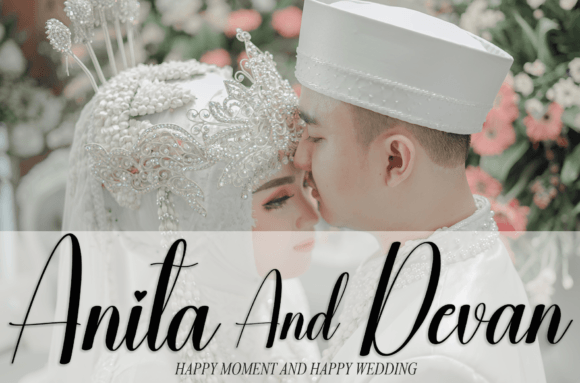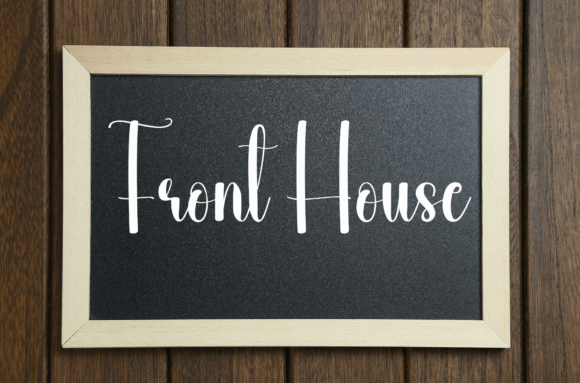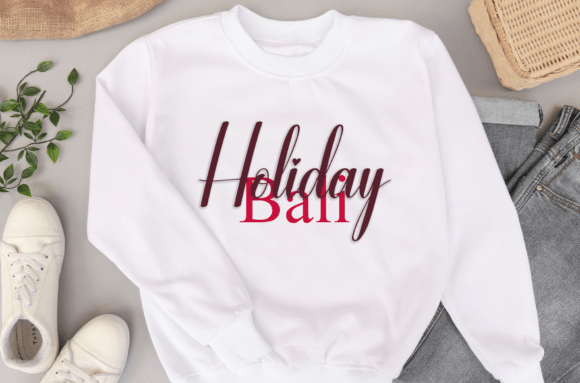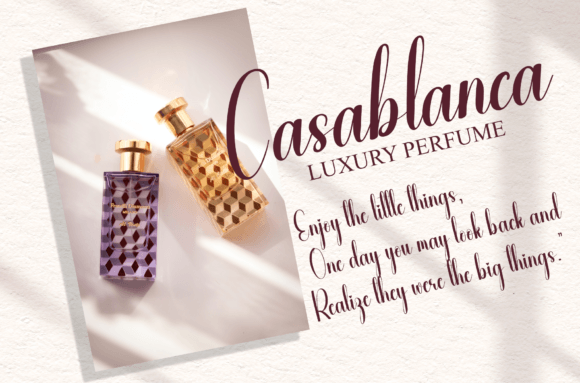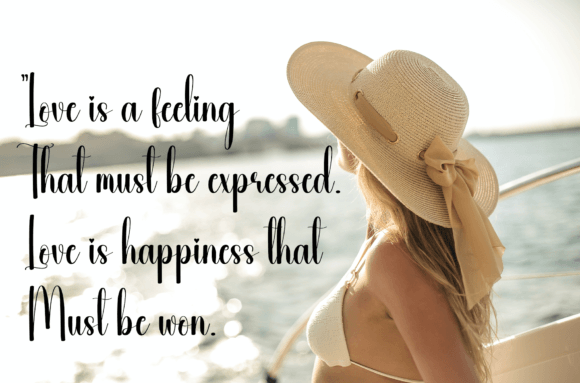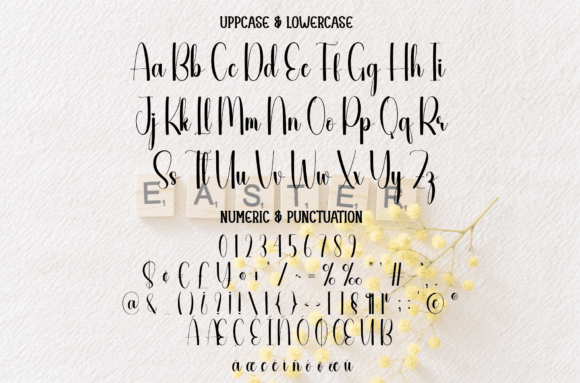
Easter is Coming Font: The Perfect Addition to Your Design Collection
As the Easter season approaches, designers and crafters are on the lookout for the perfect font to add a touch of whimsy and fun to their creations. Look no further than the Easter is Coming font, a sweet and friendly handwritten font that’s sure to delight. In this article, we’ll take a closer look at this charming font and explore its many uses in design.
A Fresh and Friendly Font
Easter is Coming is a handwritten font that’s fresh, neat, and full of personality. Its sweet and friendly vibe makes it perfect for a wide range of design projects, from wedding invitations and cards to Easter-themed crafts and decorations. The font’s clean lines and simple shapes give it a neat and organized feel, while its playful curves and flourishes add a touch of whimsy and fun.
Ideal for Wedding Invitations and Cards
One of the key uses for the Easter is Coming font is in wedding invitations and cards. The font’s romantic and playful feel makes it perfect for couples looking for a unique and personalized way to share their special day with friends and family. Whether you’re designing a formal wedding invitation or a casual Easter-themed card, this font is sure to add a touch of elegance and sophistication.
Adding a Fun Touch to Your Designs
But Easter is Coming is more than just a pretty font – it’s also incredibly versatile. Its fun and playful vibe makes it perfect for adding a touch of whimsy to any design project. Use it to create eye-catching headlines, add personality to your social media posts, or even design custom Easter-themed decorations and crafts. The possibilities are endless!
Key Features of Easter is Coming Font
- Sweet and friendly handwritten font: Easter is Coming is a unique and charming font that’s perfect for adding a personal touch to your designs.
- Fresh and neat design: The font’s clean lines and simple shapes give it a neat and organized feel that’s perfect for a wide range of design projects.
- Ideal for wedding invitations and cards: The font’s romantic and playful feel makes it perfect for couples looking for a unique and personalized way to share their special day.
- Versatile and fun: Easter is Coming is perfect for adding a touch of whimsy to any design project, from social media posts to custom decorations and crafts.
Tips for Using Easter is Coming Font
So now that we’ve explored the many uses of Easter is Coming, let’s take a look at some tips for using this charming font in your designs:
- Pair it with complementary fonts: Easter is Coming is a versatile font that can be paired with a wide range of complementary fonts to create a unique and eye-catching design.
- Use it for headlines and titles: The font’s bold and playful vibe makes it perfect for headlines and titles, adding a touch of personality to your designs.
- Add a personal touch: Easter is Coming is a font that’s all about personality and whimsy, so don’t be afraid to add your own personal touch to your designs.
Easter is Coming is a sweet and friendly handwritten font that’s perfect for designers and crafters looking to add a touch of whimsy and fun to their creations. With its fresh and neat design, romantic and playful feel, and versatile uses, this font is sure to become a staple in your design collection. So why wait? Download Easter is Coming today and start creating your own unique and eye-catching designs!